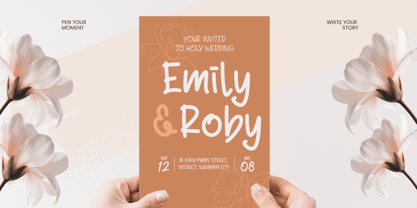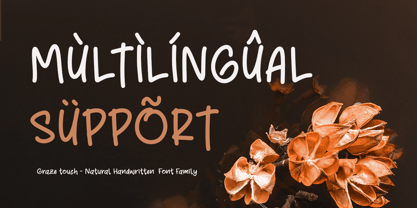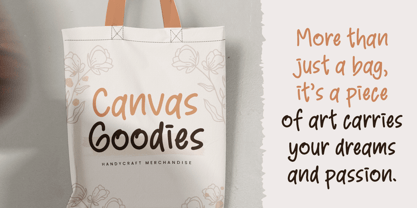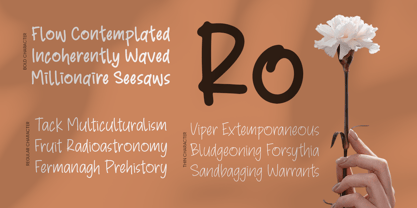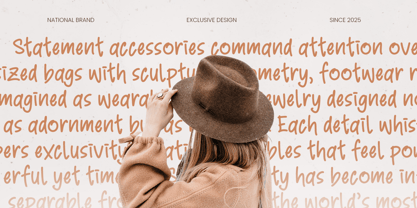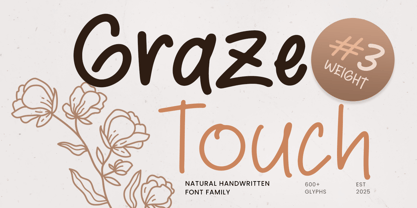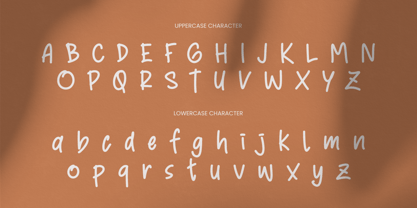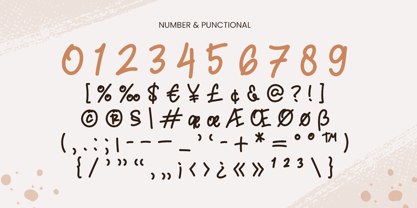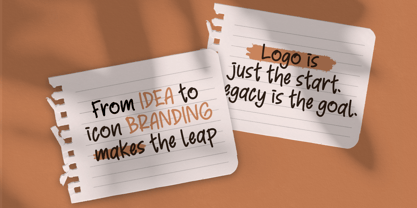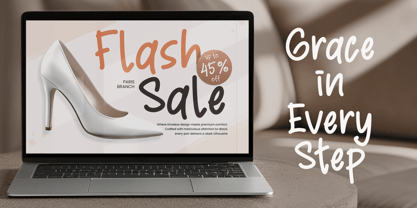
GRAZE TOUCH is a natural handwritten font family crafted to feel warm, human, and beautifully effortless. With smooth strokes and organic rhythm, it delivers a genuine handwritten look that stays clean, readable, and charming across a wide range of layouts.
Perfect for branding, logos, product packaging, labels, quotes, and lifestyle content, GRAZE TOUCH brings an inviting personality to your designs. It shines in wedding stationery, invitations, greeting cards, journals, and social media graphics—anywhere you want a personal, handcrafted tone.
Designed as a flexible font family, GRAZE TOUCH helps you build consistent visual identity from headlines to supporting text, making it a reliable choice for creatives, small businesses, and modern brands that want authenticity with polish.
GRAZE TOUCH – Natural Handwritten Features
Natural handwritten letterforms with an organic flow
Family-ready versatility for consistent branding systems
Ideal for logos, packaging, labels, and stationery
Great for quotes, posters, invitations, and social media content
Includes uppercase, lowercase, numerals, and punctuation
Clean, readable strokes for print and digital use
OpenType features for creative flexibility
Multilingual Support
Bring authentic warmth to your visuals with GRAZE TOUCH—made for friendly, heartfelt branding. ✨
Graze Touch